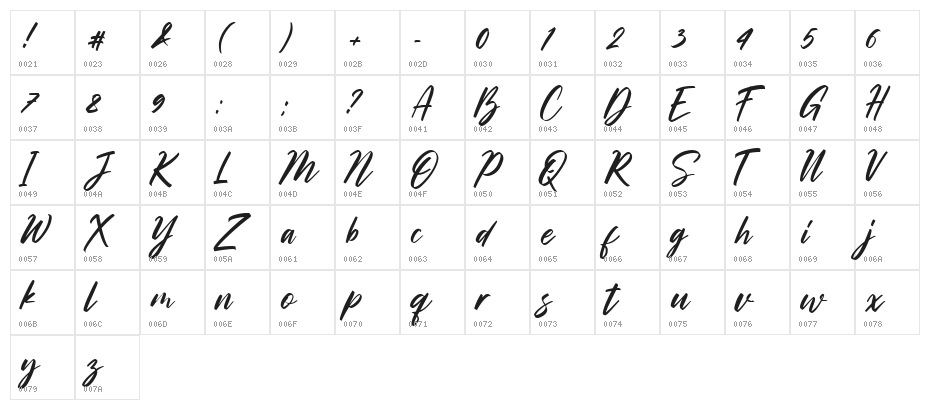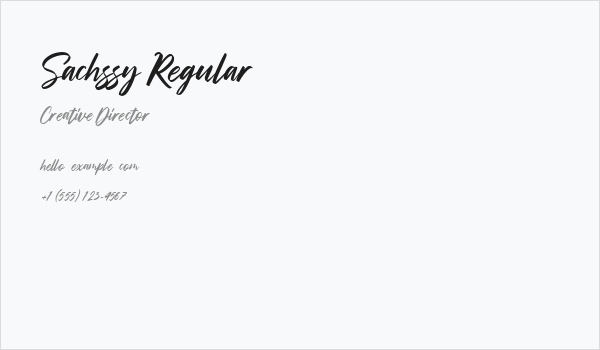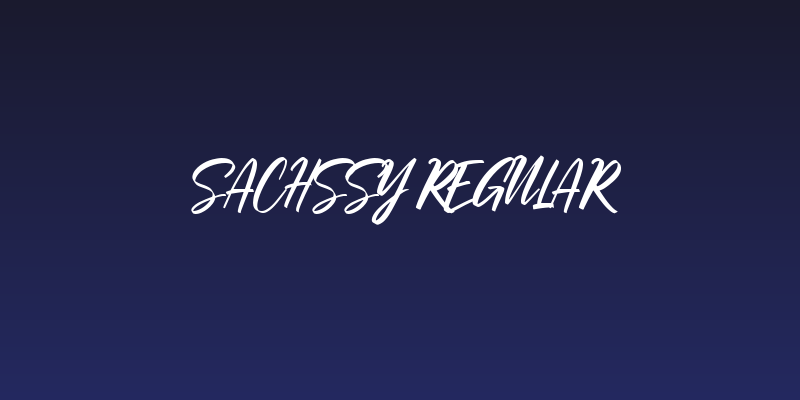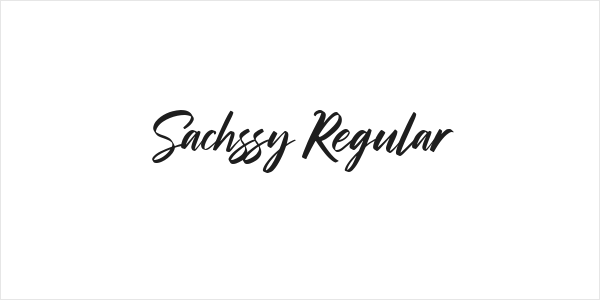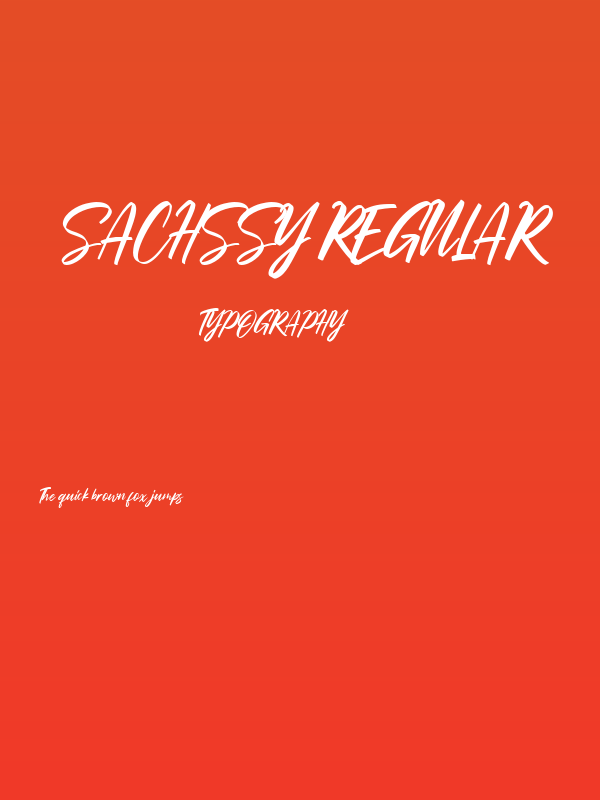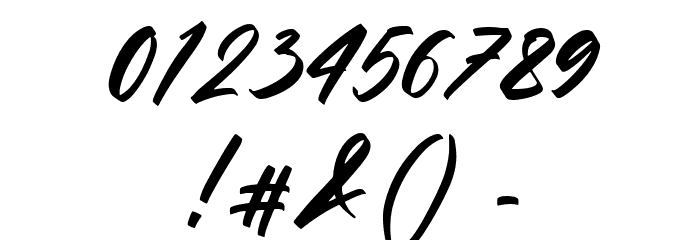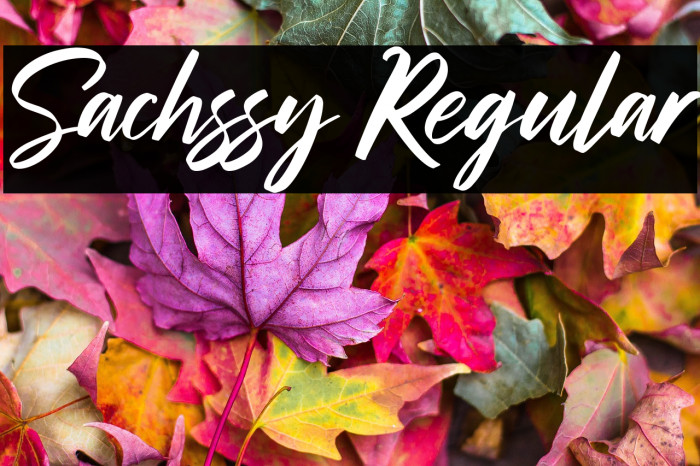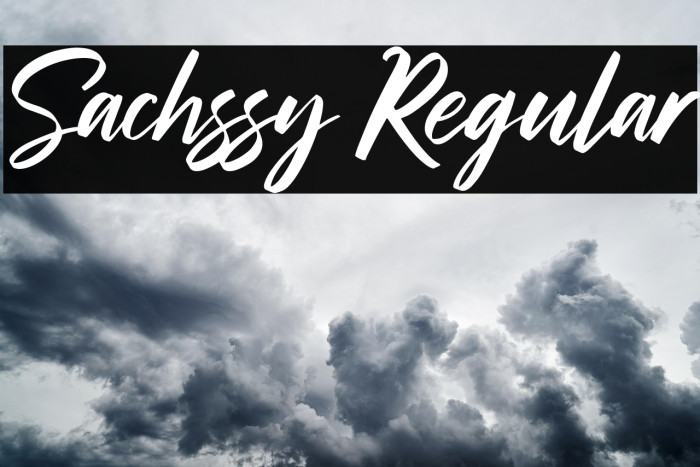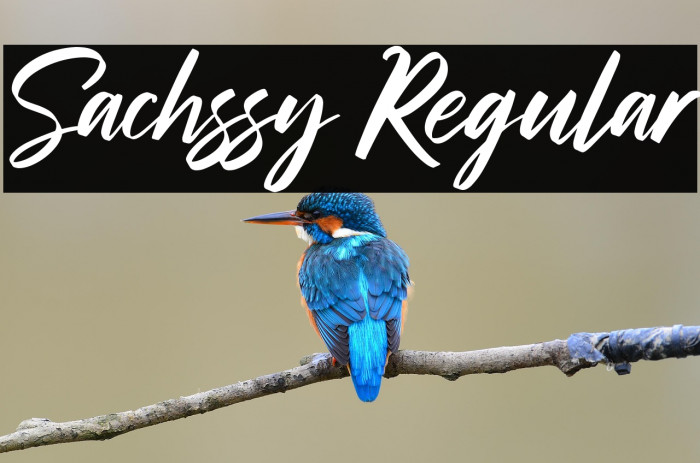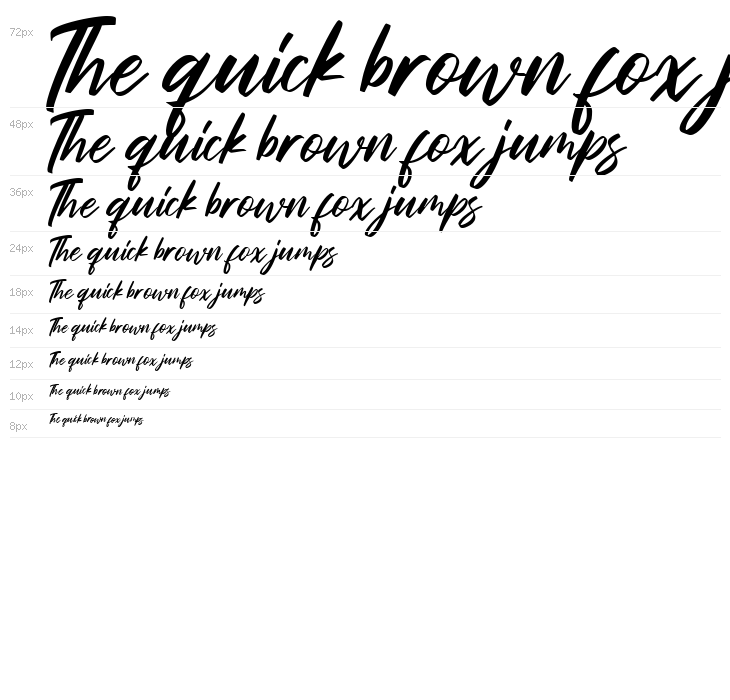
Sachssy Regular Font
Sachssy Regular Description
This font features a dynamic and expressive script style, characterized by its fluid and bold strokes. The letters are interconnected, giving a sense of continuity and flow, which is typical of handwritten scripts. The uppercase letters are slightly more angular, adding a touch of modernity, while the lowercase letters maintain a smooth and elegant appearance. The numerals and special characters are consistent with the overall style, ensuring a cohesive look across all characters. This font is ideal for projects that require a personal and artistic touch.